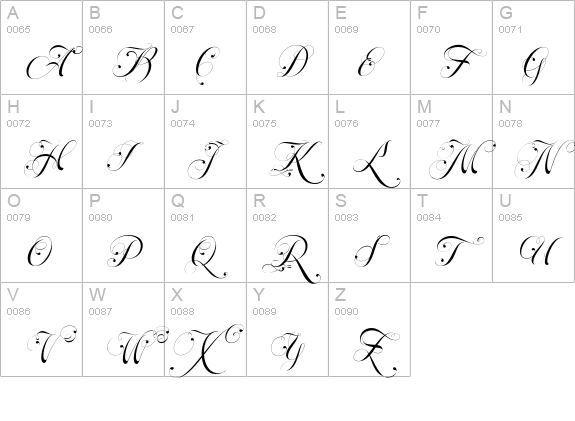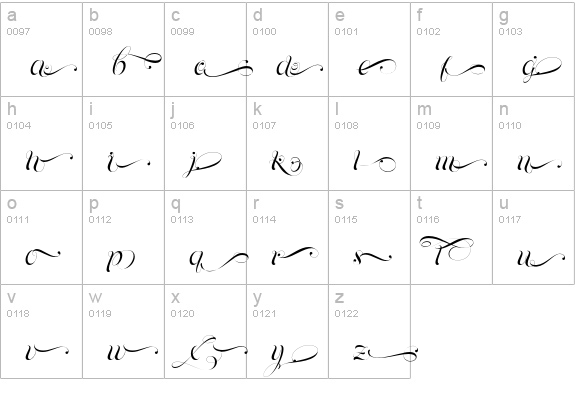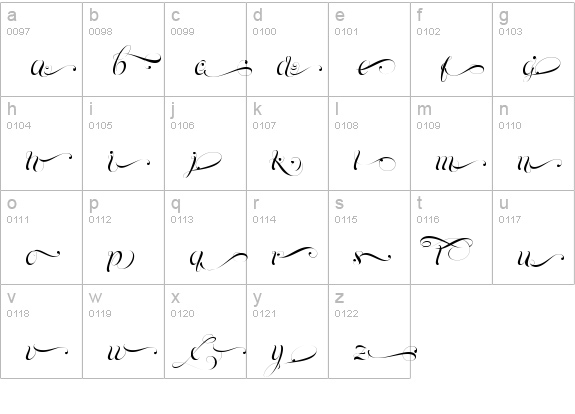
Parfait Script Swash Font Details
Parfait Script Swash is a beautifully crafted font that exudes elegance and sophistication. With its delicate swashes and flowing curves, this typeface adds a touch of charm to any design project. Whether you're creating invitations, branding materials, or social media graphics, Parfait Script Swash is sure to make a lasting impression. The best part? This stunning font is completely free to download at FontsMarket.com. You can easily enhance your creative projects with this versatile and stylish typeface without spending a penny. Don't miss out on the opportunity to elevate your designs with Parfait Script Swash - download it for free today!